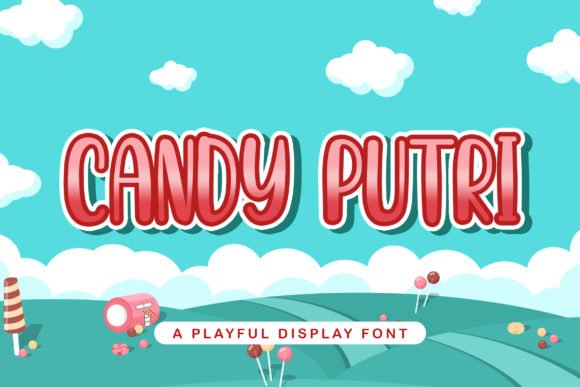
Unleash Your Inner Child: Discover the Magic of Candy Putri Font
Do you remember the excitement of creating a masterpiece as a child, with crayons and markers scattered all over the table? The feeling of bringing your imagination to life, and watching your creation unfold before your eyes? For designers, that same sense of wonder and creativity is what drives us to push the boundaries of our craft. And for those moments when we need a little inspiration, there’s one font that’s sure to put a smile on our faces: Candy Putri Font.
| 👤 Author | StringLabs |
This fun display font is the perfect addition to any children’s design or school project. With its playful and fresh vibe, it’s sure to add a touch of whimsy to any creative idea. Whether you’re designing a children’s book, a birthday invitation, or a simple poster, Candy Putri Font is the perfect way to bring your imagination to life.
- Unique Characteristics: The Candy Putri font features a unique, hand-drawn design with intricate details and ornaments, making it perfect for creating eye-catching and whimsical designs.
Candy Putri Font Review
Candy Putri Font is a unique and eye-catching font that’s perfect for adding a touch of sweetness to your designs. Here are some things that work well:
- ✨ It’s super playful and fun, making it great for kids’ products, candy packaging, or any design that needs a touch of whimsy.
- ✨ The font is highly customizable, allowing you to adjust the size, color, and spacing to fit your design needs.
- ✨ It’s a great option for designers who want to create a cohesive look and feel across multiple design elements.
- ⚠️ The font may not be suitable for formal or professional designs, as it can come across as too playful or childish.
- ⚠️ Some characters may not be supported in certain languages or character sets, which could limit its use in global designs.
Overall, I think Candy Putri Font is a great addition to any designer’s toolkit. It’s perfect for designers who want to add a touch of fun and whimsy to their designs. With a little creativity and caution, this font can help take your designs to the next level.
Candy Putri font is ideal for designs that require a playful and whimsical touch, such as:
- Party invitations
- Social media graphics
- Food and dessert labels
Remember to experiment with different font sizes, colors, and styles to get the most out of Candy Putri font.